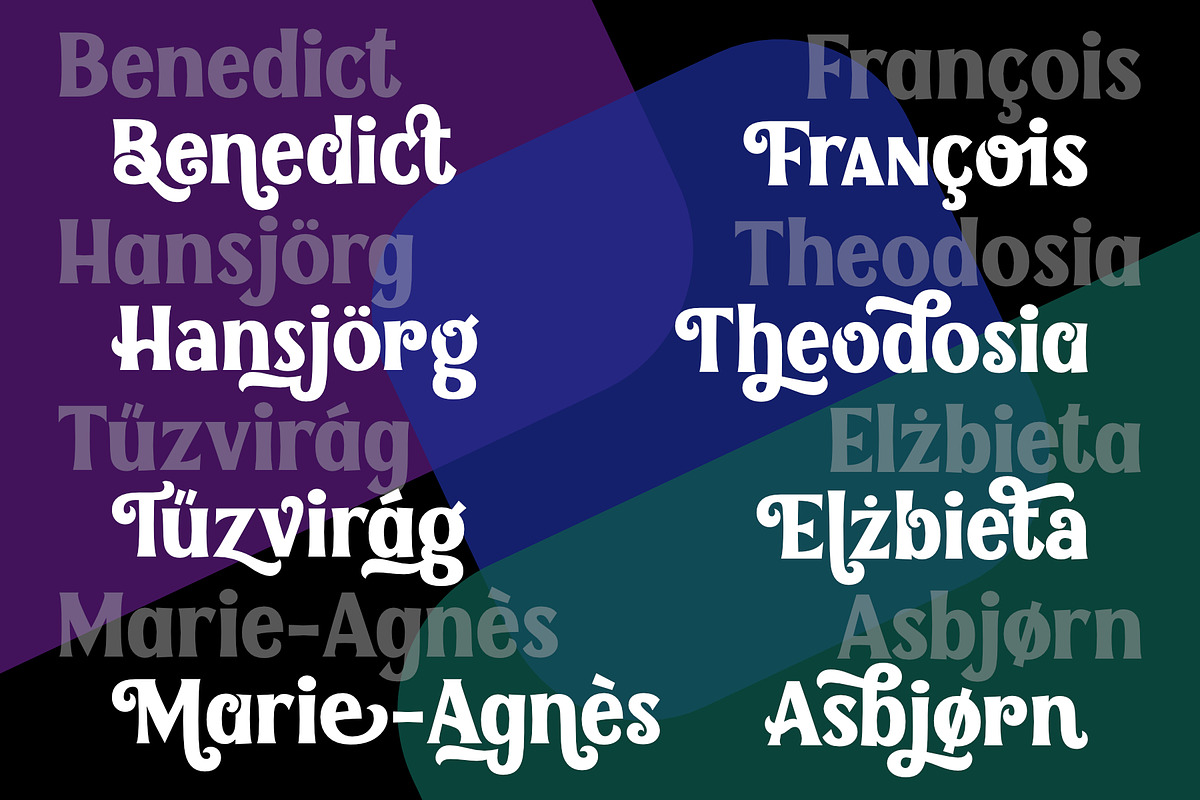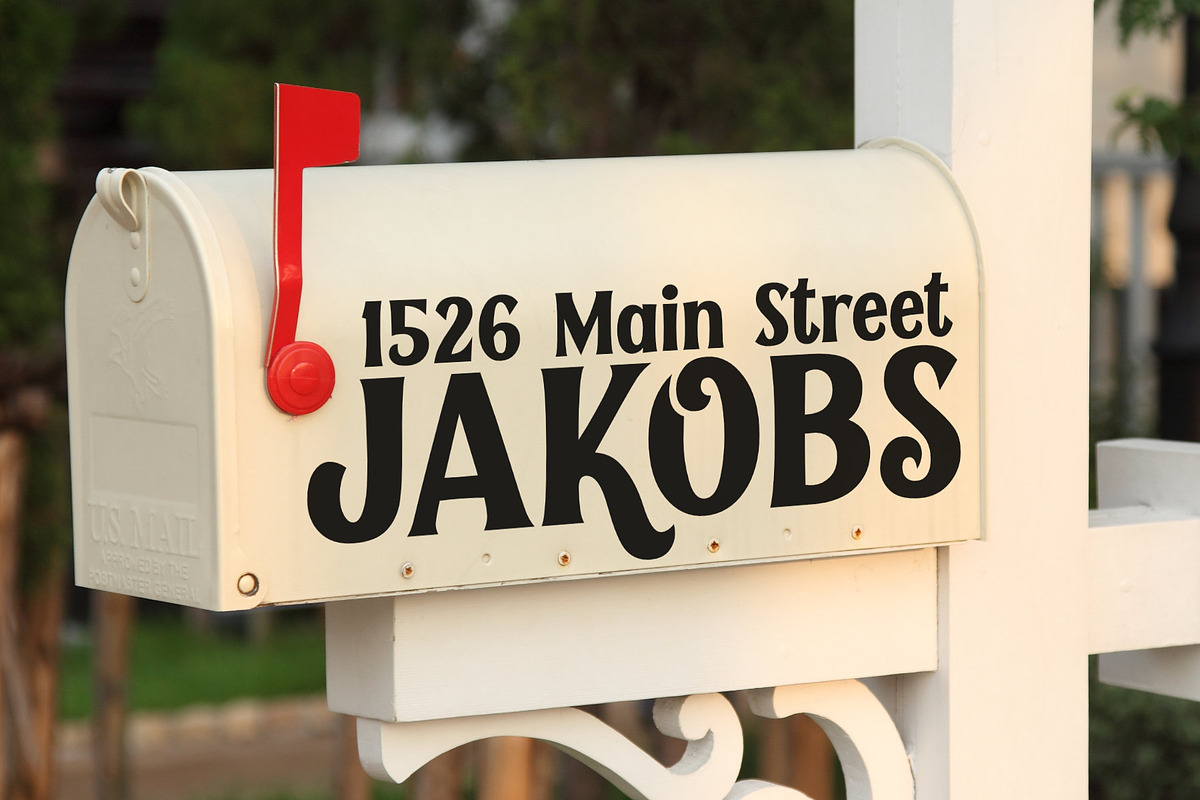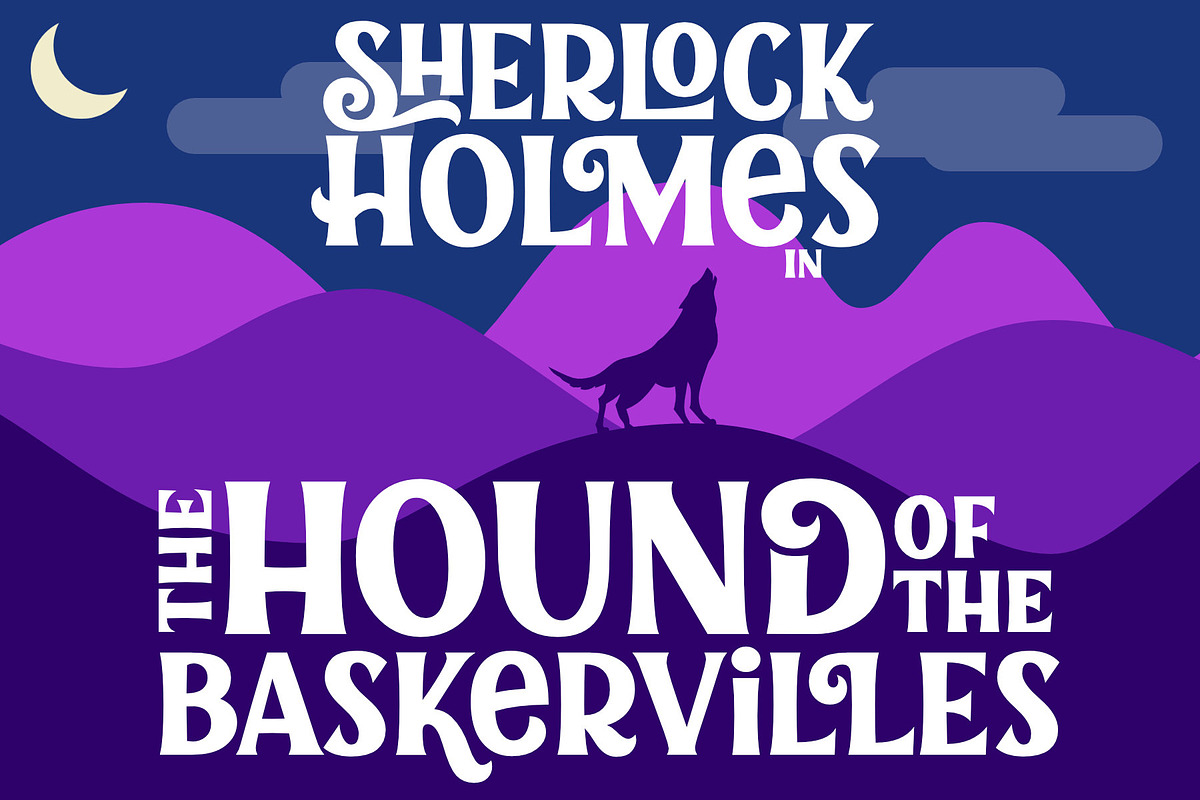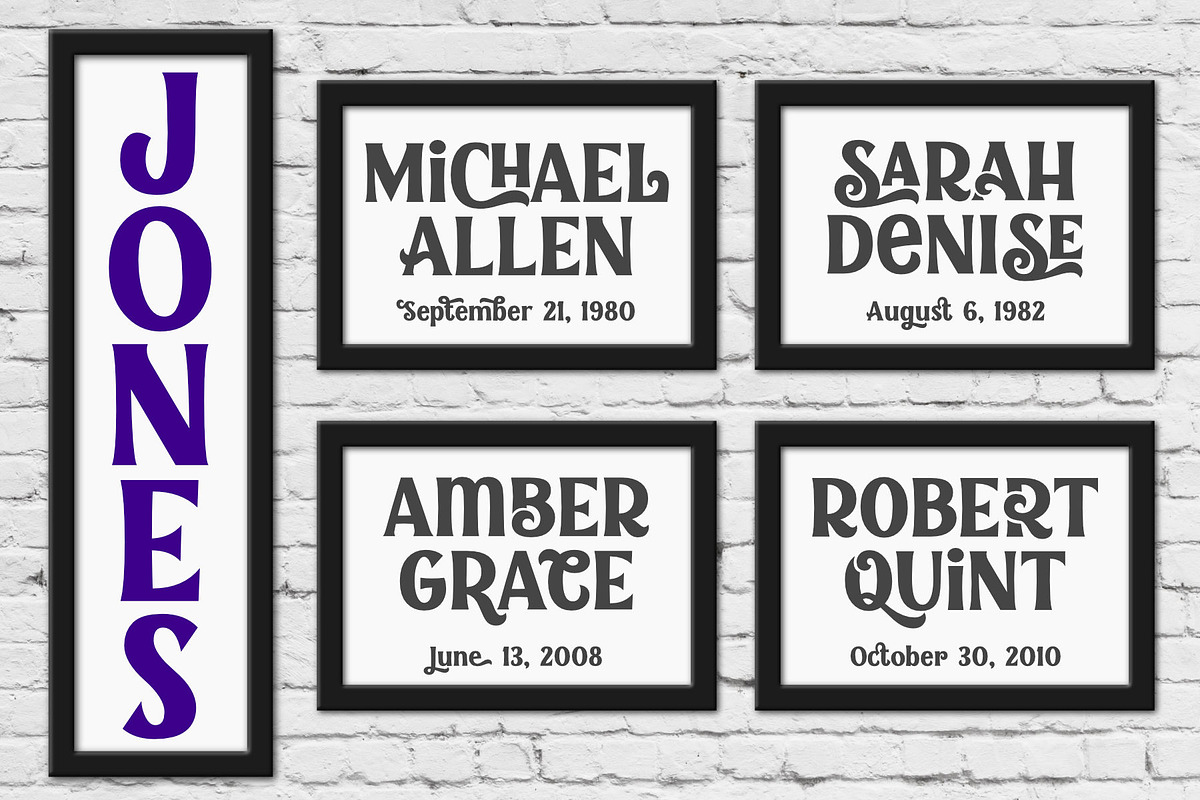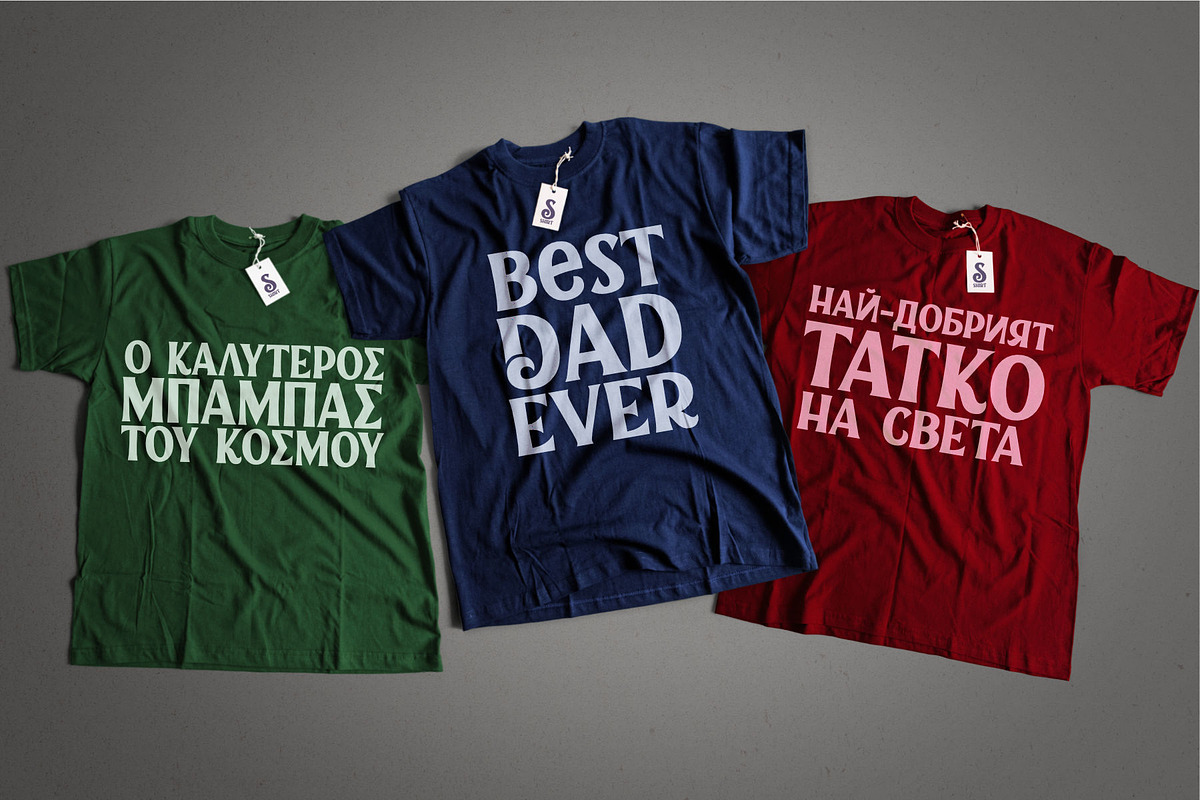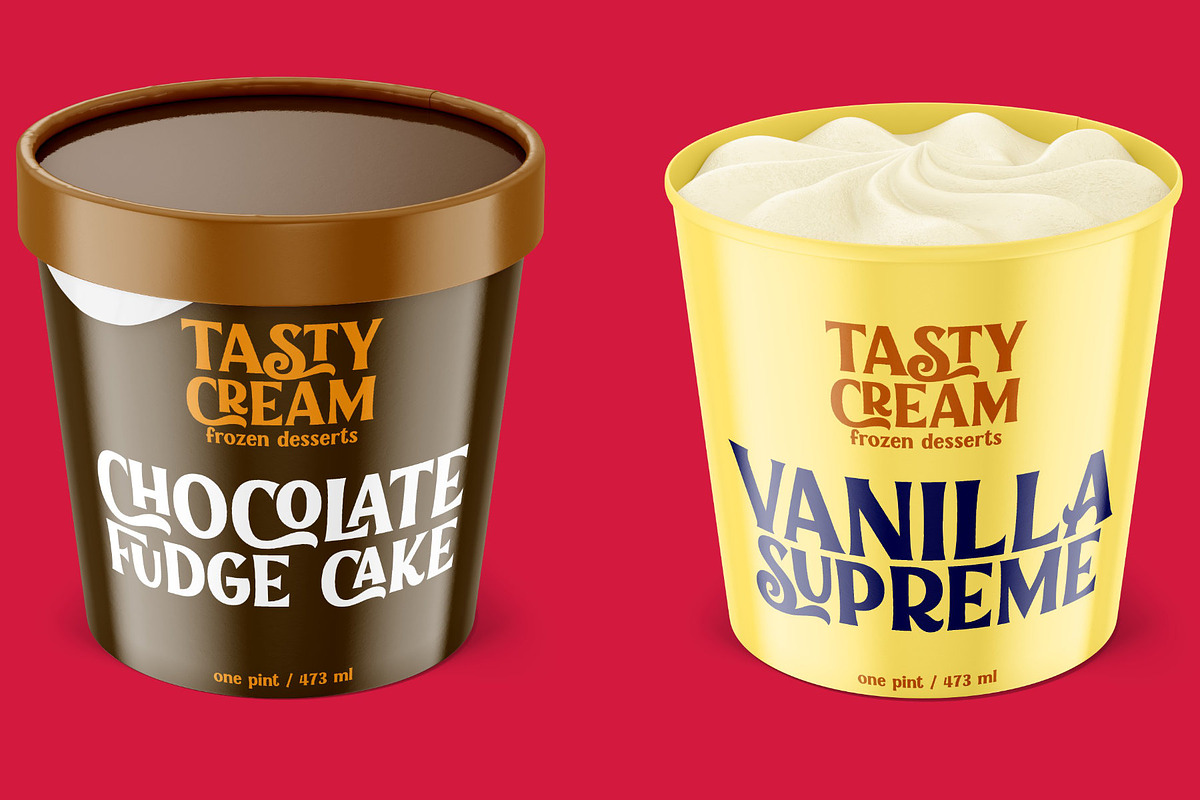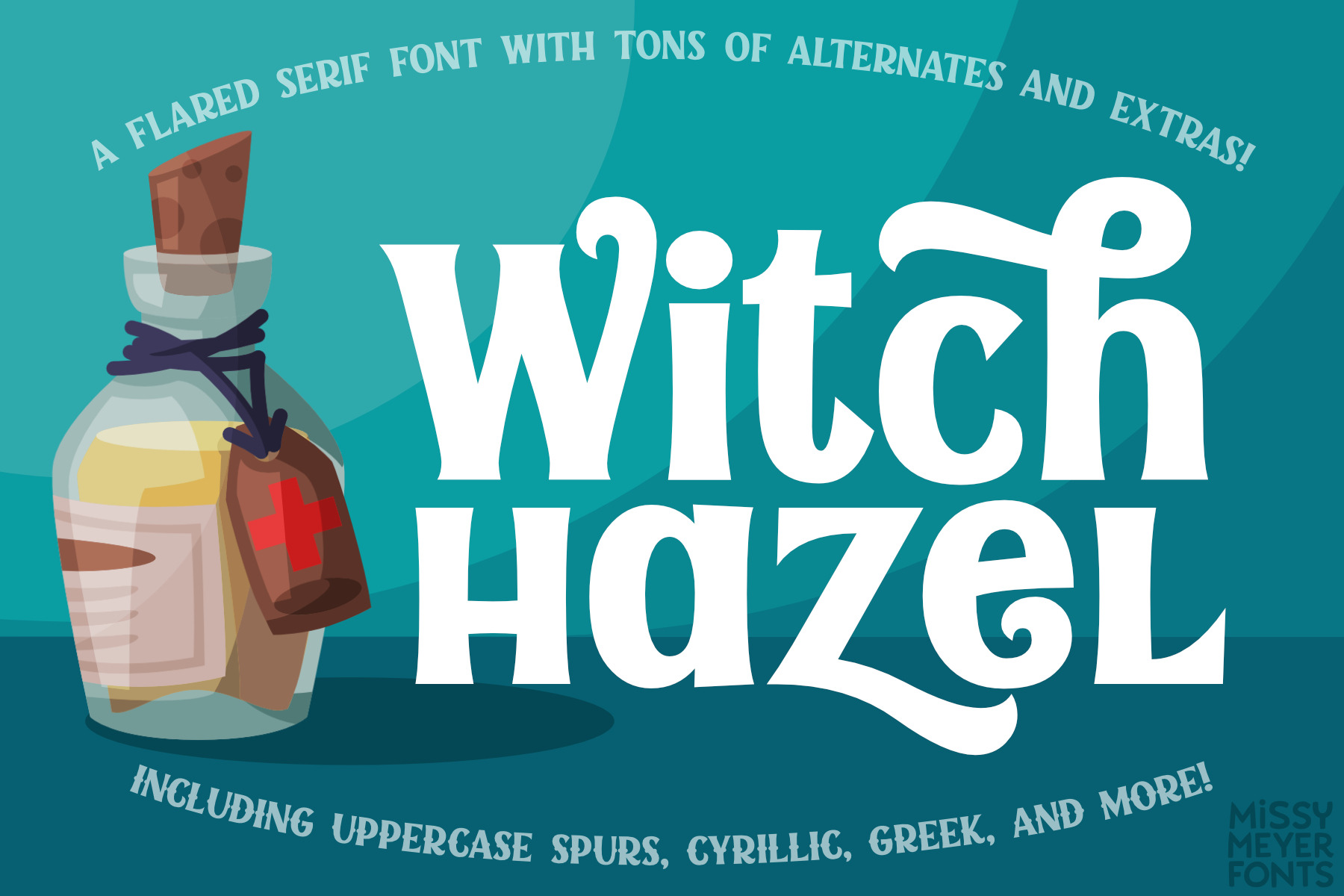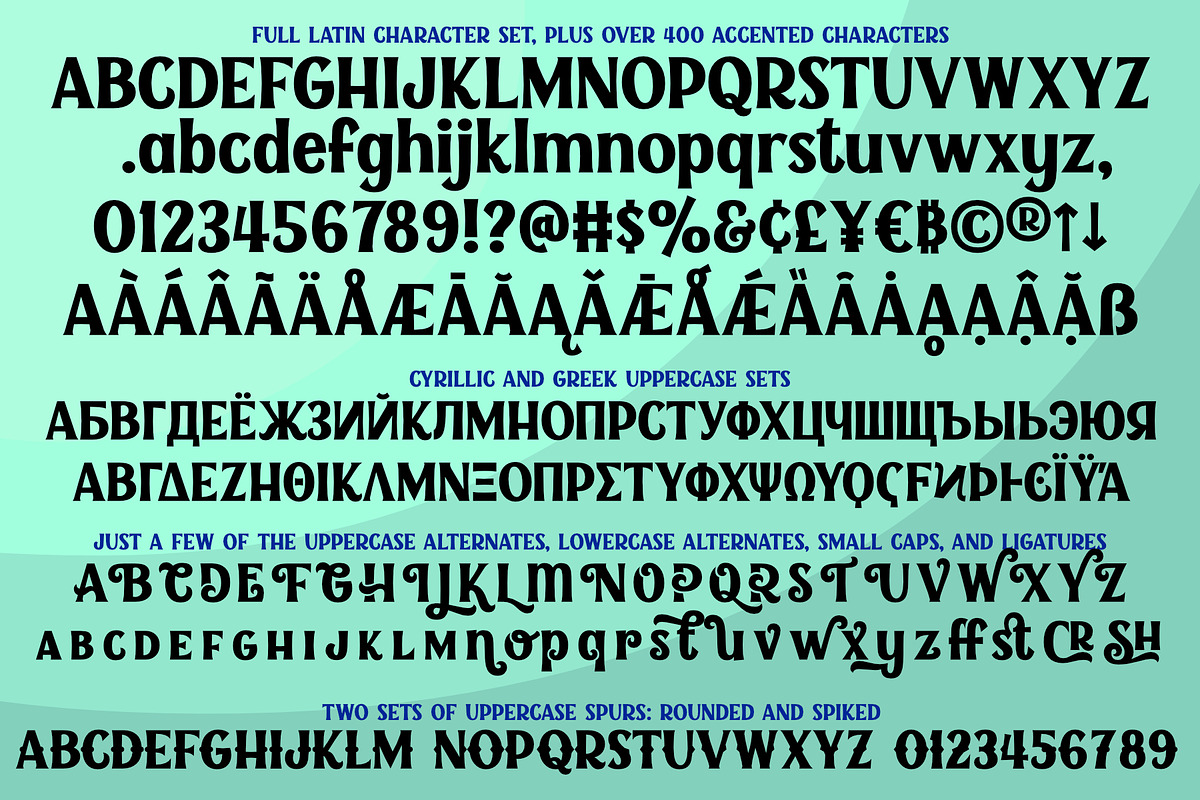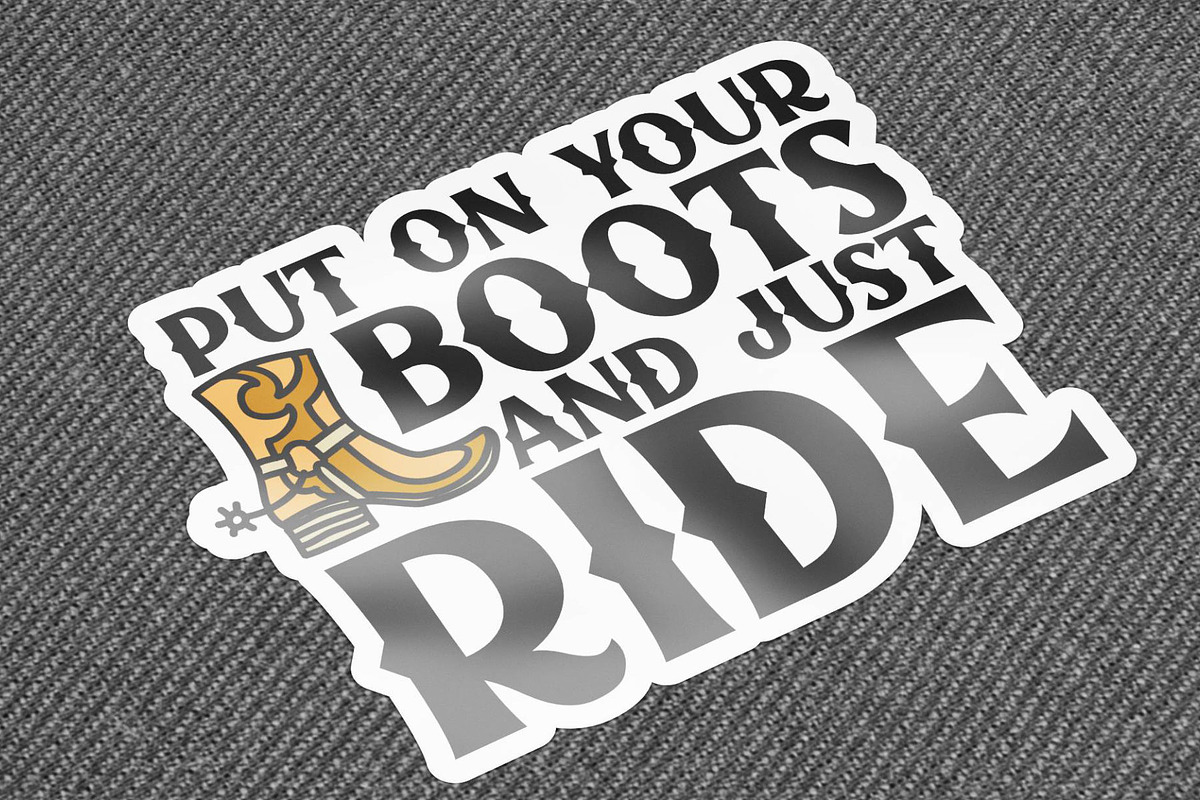
Witch Hazel: a flared serif font!
Witch Hazel has been quite a while in the making; a fun font with slightly flared serifs, lots of ligatures and alternates, and over 1150 glyphs!
This font is great for holiday designs, from Valentine's Day to Halloween to Christmas! It also bridges modern and vintage styling, so you can use it for fairy tales and pirates, or for your company's branding and logo!
I just couldn't stop adding more and more to this font. Witch Hazel includes:
- The usual A-Z, a-z, 0-9, and tons of punctuation;
- Greek uppercase letters;
- Cyrillic uppercase letters;
- Over 430 extended Latin characters;
- Small caps;
- Decorative alternates for all letters (some letters have up to 8 alternates!);
- Numbers and uppercase letters with pointy spurs;
- Numbers and uppercase letters with rounded spurs;
- 40 two-letter ligatures!